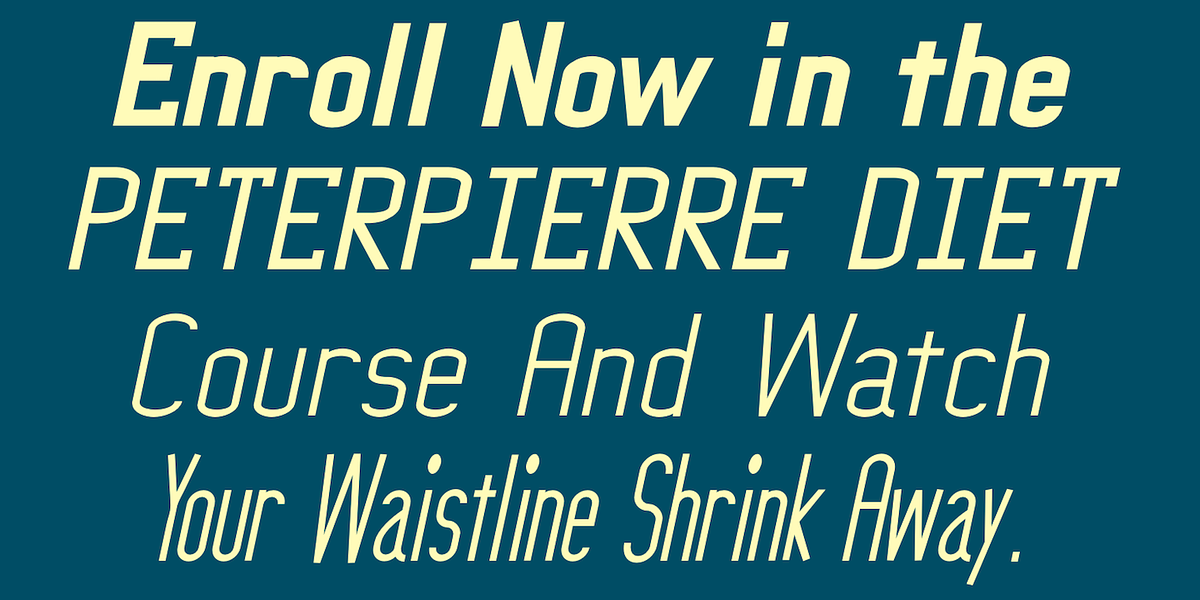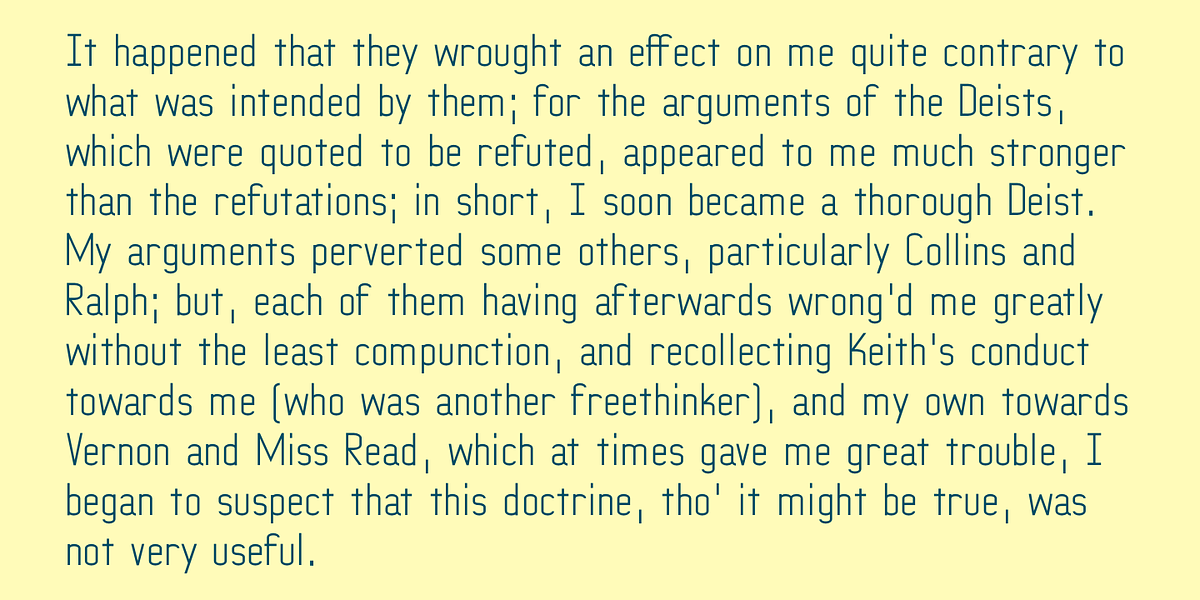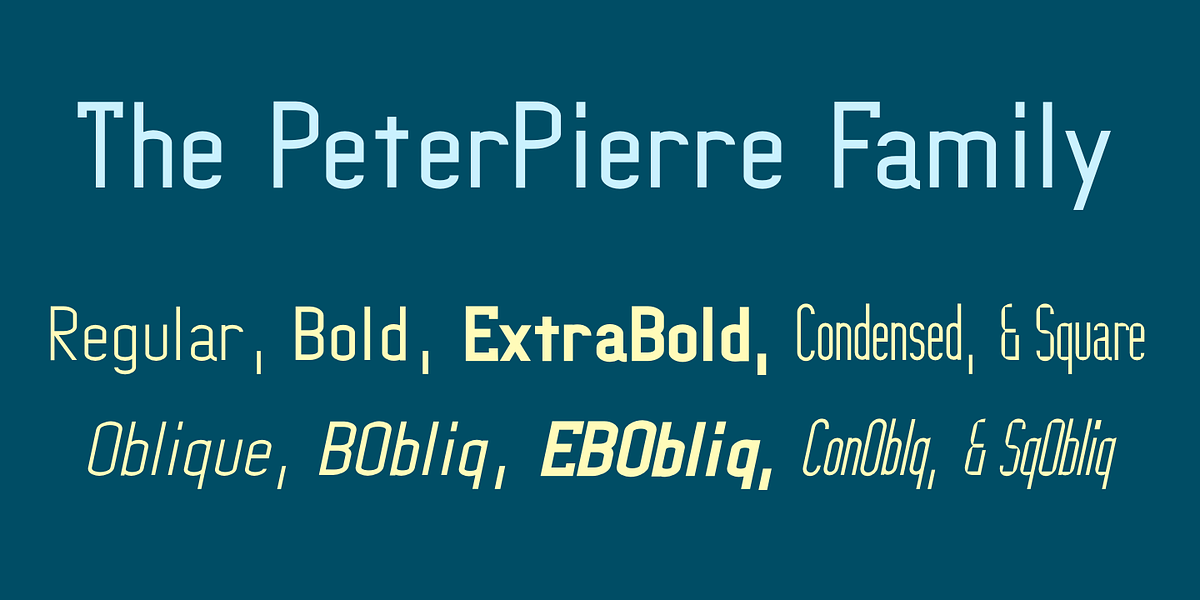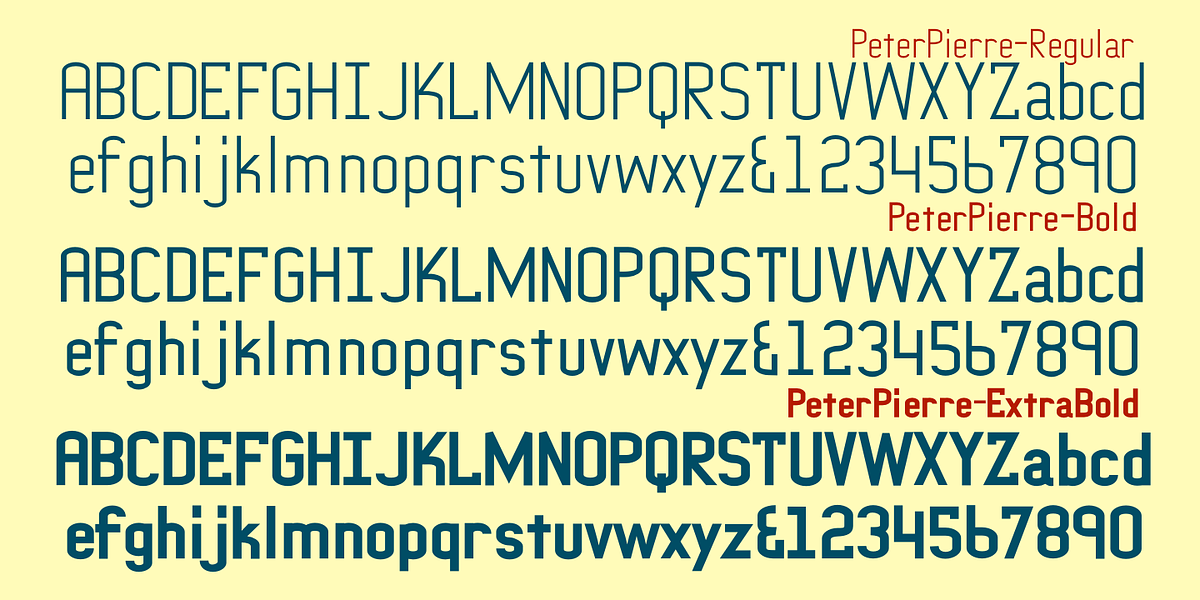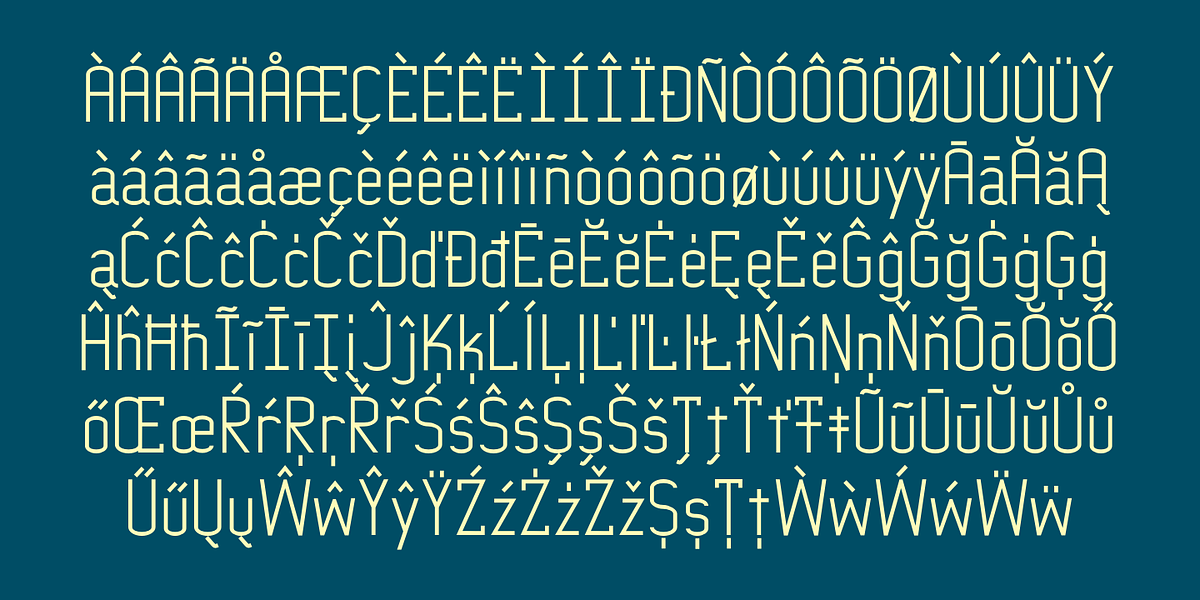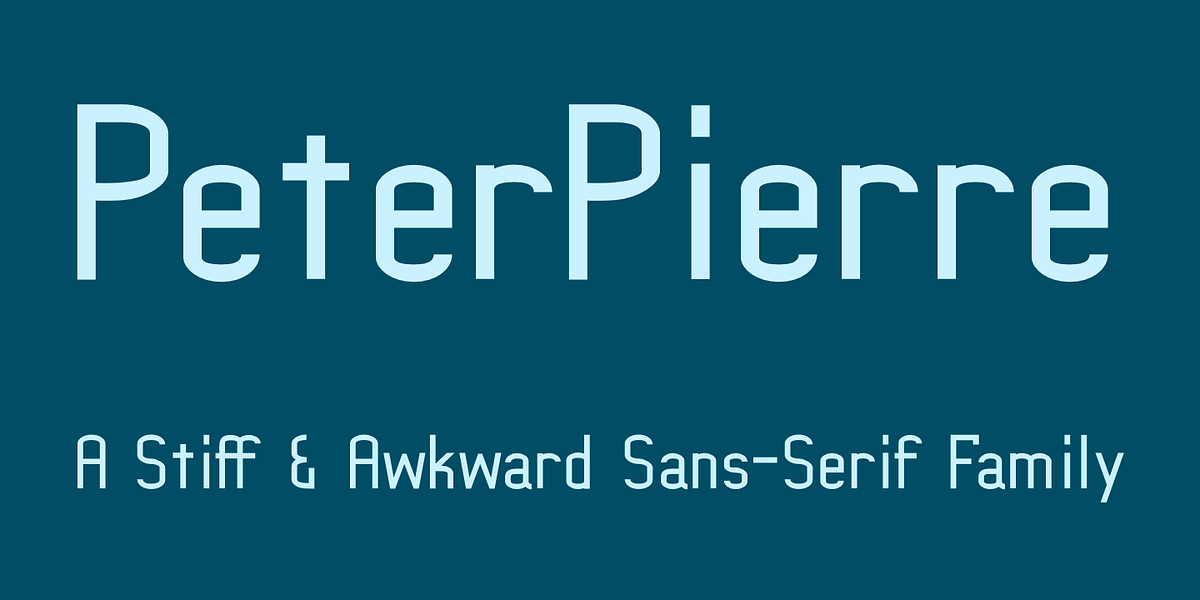
PeterPierre
PeterPierre is a sans-serif typeface characterized by its stiff and awkward appearance. It features minimal variation in stroke width and connects vertical and horizontal elements with short, sharp curves. The font was initially designed in a condensed style for legibility reasons and later expanded into a regular width.